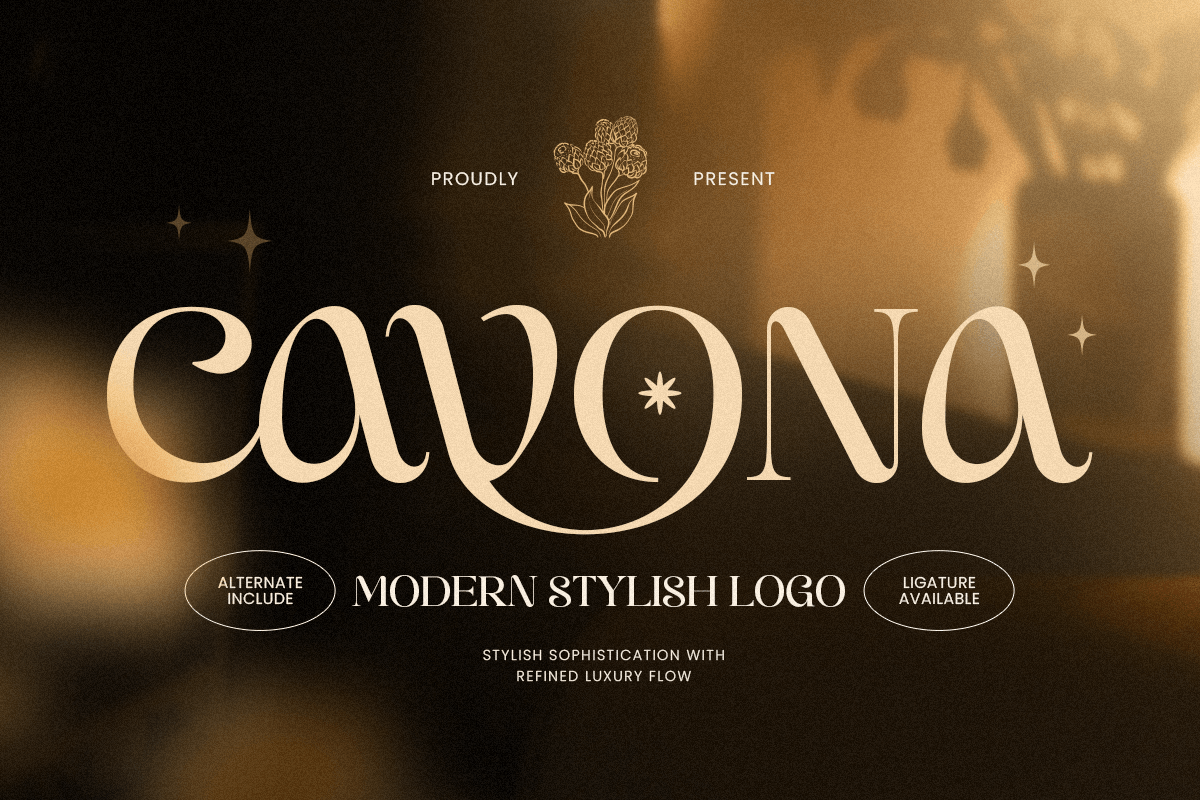
Cavona
-Modern Stylish Logo FontCavona - Modern Stylish Logo Font
CAVONA is a modern stylish logo font designed to create elegant and memorable brand identities. With refined letterforms, balanced proportions, and a contemporary visual style, this typeface is perfect for logos, branding systems, packaging, editorial layouts, and modern creative projects.
Crafted for designers who seek a combination of simplicity and sophistication, CAVONA brings a polished and professional appearance to every composition. Its stylish character makes it ideal for fashion labels, beauty brands, lifestyle products, boutique identities, and premium marketing materials.
Whether used for logo marks, headlines, product labels, or digital branding, CAVONA delivers a clean and distinctive typographic presence across both print and digital applications.
CAVONA – Modern Stylish Logo Font Features
Modern logo-focused design with stylish visual character
Perfect for branding, packaging, editorials, and premium identities
Clean letterforms with refined contemporary proportions
Ideal for fashion, beauty, lifestyle, boutique, and creative brands
OpenType features for enhanced typographic flexibility
Create a modern and memorable identity with CAVONA – the perfect logo font for stylish branding, premium packaging, and contemporary design. ✨